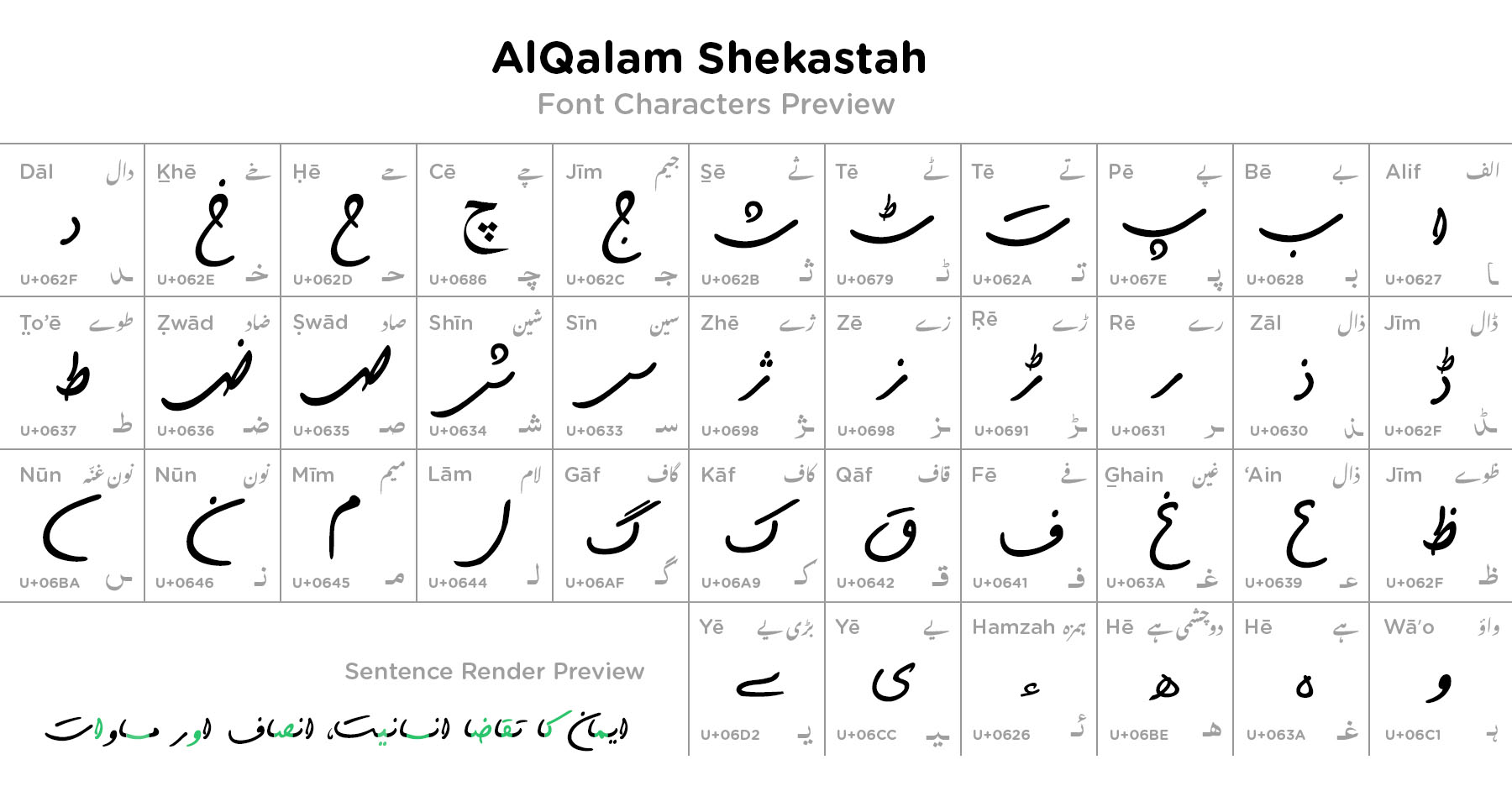
AlQalam Shekastah is a lovely and unique Urdu font with smooth and flowing curves. It is designed by Shakirulqadree and is a trademark of AlQalam. It's a cursive typeface, which means the letters are linked together. This results in a highly smooth and beautiful appearance for the typeface almost looks like it is handwritten. It is based on the historic Nasta'liq script, which is commonly used for writing Persian, Arabic, and Urdu. It is a highly flexible font with a character set of 219 letters and a glyph count of 335 with support for Latin, Urdu, and Arabic and compatibility with modern Unicode blocks. AlQalam Shekastah is a lovely Urdu font that adds style to your writing. You can use it in your different writings like poetry, prose, and even calligraphy. The letters have constant thickness throughout, smooth curves, varying spaces, and interconnected dots giving a natural feel to your text. This type of font is often used for digital signatures, book covers or to make attractive banners and catchphrases for your websites.